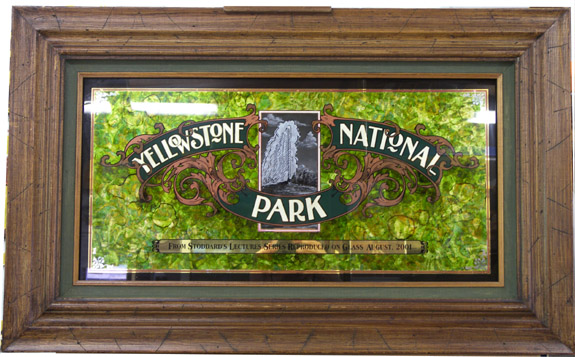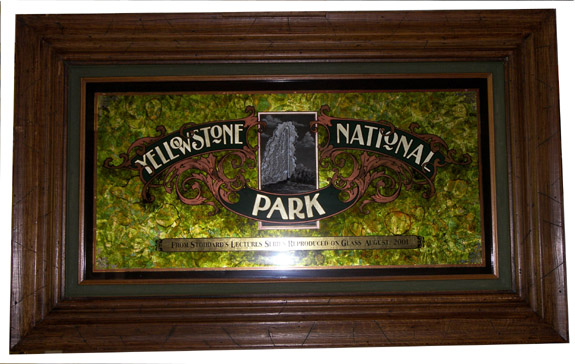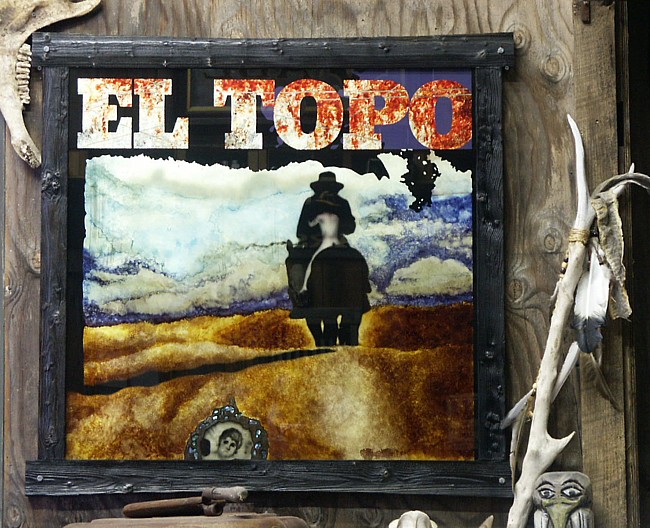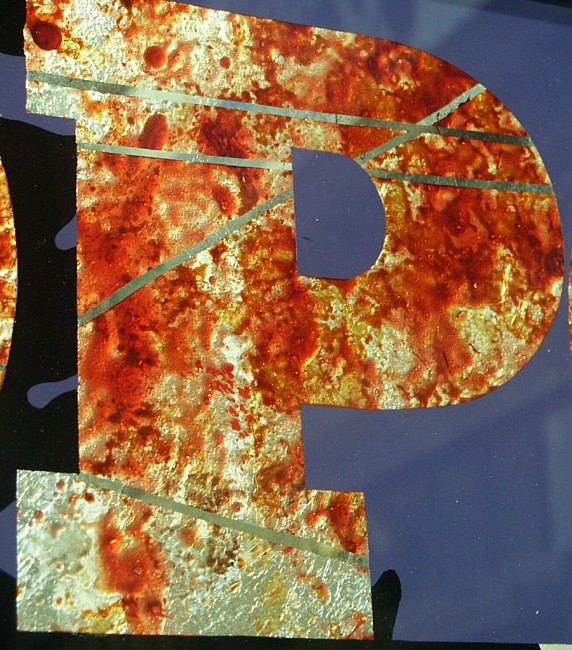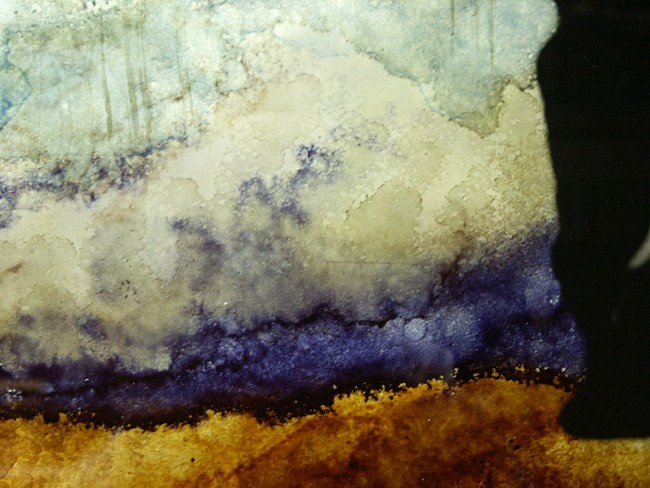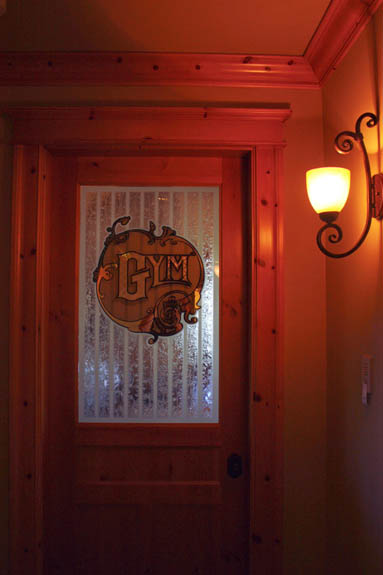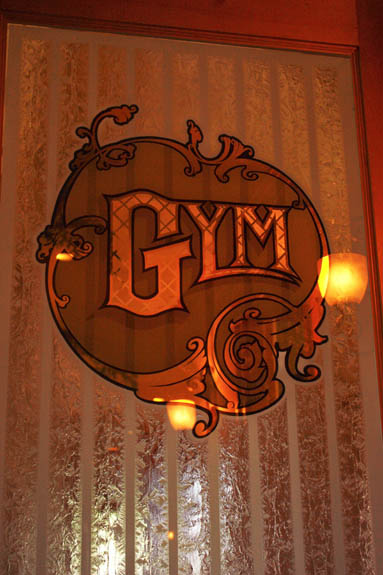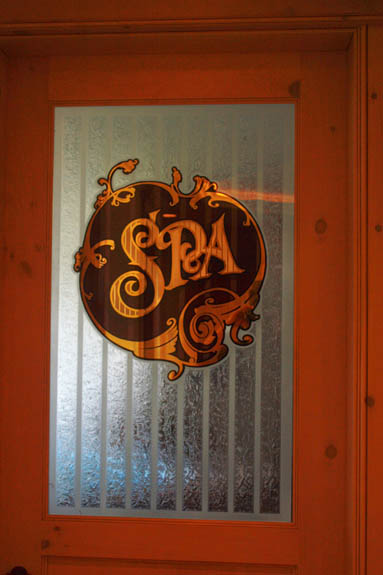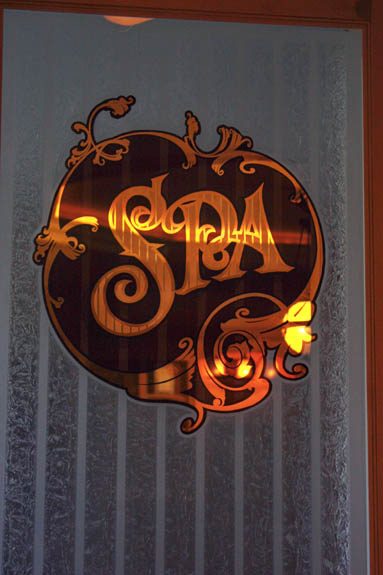
Original Dead Men
Re: Original Dead Men...
Fits right into his new home, new friends and all that gold.
Re: Original Dead Men...
after one day in Machine, well I'm startin to think big, too.
watchin El Topo has given me a few ideas....
like what kind of background is needed to finish this ol piece.
you see, once you put on your spook mask,
its easy to see your charcoal lines in the gild
That's one crazed background Jenco!
Not a lotta call for a man with your skills!
That background grew on me over the weekend, now I like it even more in the frame!
Nice...very nice!
Watchin' you work, I been startin' to think about glazes too!
...you knew it was only a matter of time..
and maybe faster than you!
bury your first quill,
and a picture of your simple lettering style...
today you become a man.
The blood of your hand lettering has served you well,
now you must seek the four masters.
...What masters he talkin' about?
There's no masters, he's crazy!
Looks like you made your first mistake, Jenco!
Quotin' all them jobs, left you no time to play! ......SWM
Today you are seven years old.
Now you are a man.
Bury your first toy and the picture of your mother!
do you only know how to play?
or do you know how to shoot, too?
so you found out your not a businessman after all.
just a gildin artisan.
very nice, el topo.
Re: Original Dead Men...
Hey Jenco! I almost forgot to thank you for the Gilder's Back-Up Spook Mask.
You know, the ones that you and those boys wore. We didn't have no Ma.....
So Pa cut the custom eye holes for us.
Comes in real handy when doing water gild back-up via pounce pattern!
Could probably use it on a bank job too! Nice...real nice!
Course, you known me, long as I've known you. Couldn't leave well enough alone...
Had to spruce it up a bit!
Lotta playin' going on there in machine. Nice job on the El Topo.
aaaaaaaaaaaaaaahhhhhhhhhhh...
what do you do with a frame like that?
does something like that improve el topo?
who knows, does anyone know?
how does one find out how to make such play time?
maybe nobody knows.....
You're a funny one, Jenco!
That frame,...made it out of an old discarded headboard and footboard I found out in the alley...and perfect timing too!
It's so strange you don't remember anything about my scrounging.
Little close up of one of the letters. Painted the black & puple backgound first, leaving the letters open. The random stripes across the letters were water gilded 16K. Using transparent screen ink, I tinted up some embossing varnish (1/3 Damar Varnish, 1/3 Rubbing Varnish, & 1/3 Resin Gel), looked like strawberry jam, but it sure didn't taste like it! Applied that liberally in the desired areas. After that was set up, it was spounged with red tinted shellac, then another application of the embossing varnish, and a second application of red shellac. When dry, it was fully coated with spray shellac and water gilded with 12K gold and backed up.
The background was done by building up various colors of transparent shellac. The spounge textures were softened by spritzing with denatured alcohol. Multiple layers of shellac were applied with each subsequent layer sealed with an acrylic spray. When complete, the entire background was surface gilded with silver leaf and backed up. This was a fun project and very freeform...and I enjoyed it!
You got alotta nerve givin away secrets like that.Wher'd you learn that anyway?
Show off.
Clown.
Found this old article from 1872, I'll be danged! It's Sally Jenco!
One thing's certain,
Noah never shoveled as much bull from them he had aboard!
now that you found me in the record books...
how do I end it?
Mark it.
Installed.
Some nice stuff there. Nice frames too! It's so strange you don't remember anything about my frame obsession.
Wouldn't be too surprised if Rick Glawson had a hand in a few of those.
kind of gets ya, doesn't it...
auctioning off all those frames with glass.
I keep biddin, and still I'm miserable.